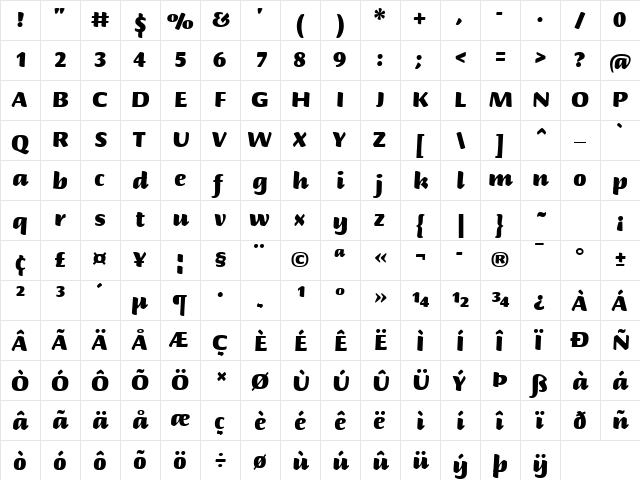
Briem Script Std Ultra Regular Font Preview
Briem Script Std Ultra Regular
Briem Script Std Ultra Regular Font Details
| Designer | Gunnlaugur SE Briem |
Design Context for Briem Script Std Ultra Typeface
Briem Script Std Ultra flows with the natural rhythm of handwritten lettering, making it ideal for designs that call for warmth and personal expression.
Font Pairing: Combine Briem Script Std Ultra with a simple geometric sans for maximum contrast — the tension between flowing curves and clean structure is a classic typographic pairing.
Pro Tip: Pair Briem Script Std Ultra with a clean sans-serif for supporting text. The contrast between fluid script and geometric structure creates an elegant typographic hierarchy.